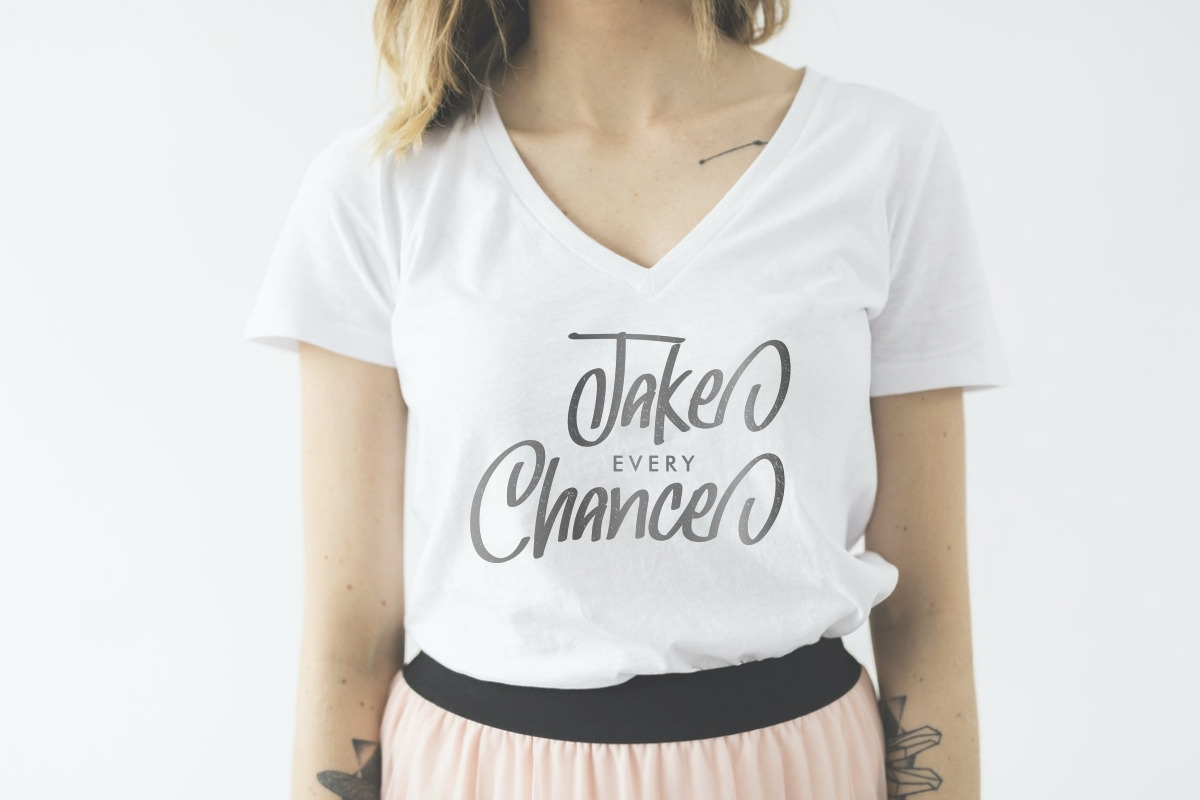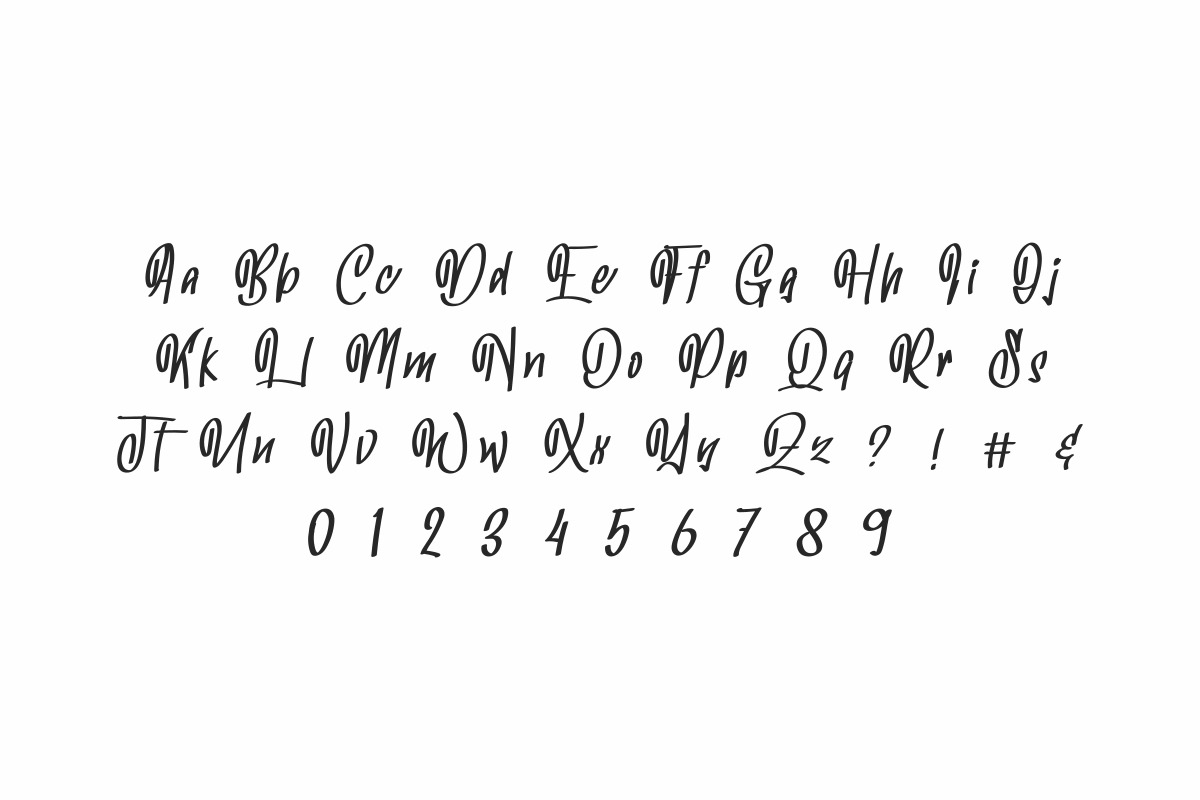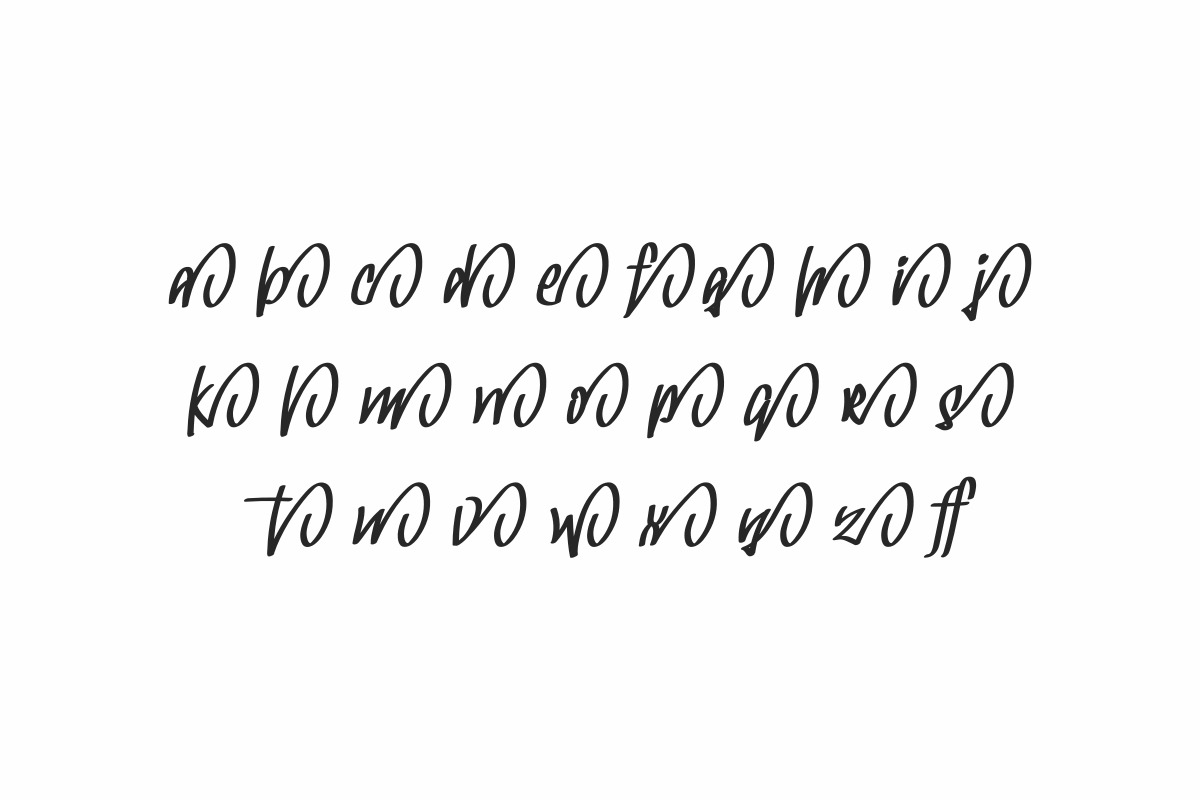
Buffalow Brush Hand Lettering Font
Buffalow is a brush hand lettering font. Originally made in 2020 by NihStudio Font Designer : Widiyanti and Suci. On the package you will get :
Handcrafted here in our Studio , Indonesia. Buffalow Font will be great for any projects (require extended license) including : branding, logo, stationery, business card, signage, flyer, brochure etc.
The theme style of the Buffalow is handwriting, luxury, glamour, gold, vintage, stylish, sophisticated and classic brush style. The font will be match for this typeface: wedding, events, real estate, architect, law firm, florist, gardening, makeup artist, travel, hotel, musician etc